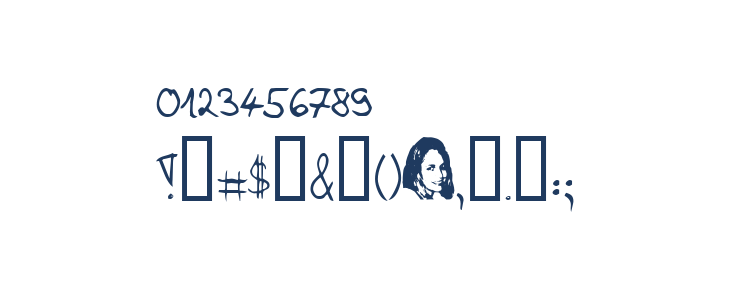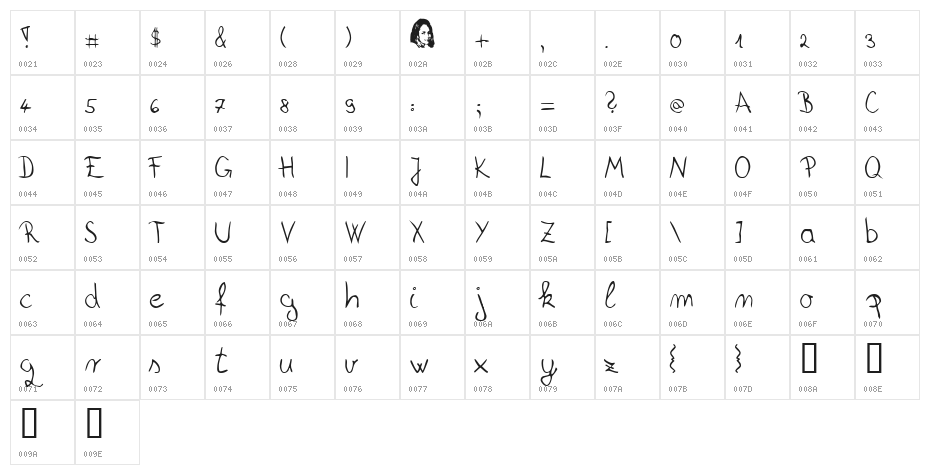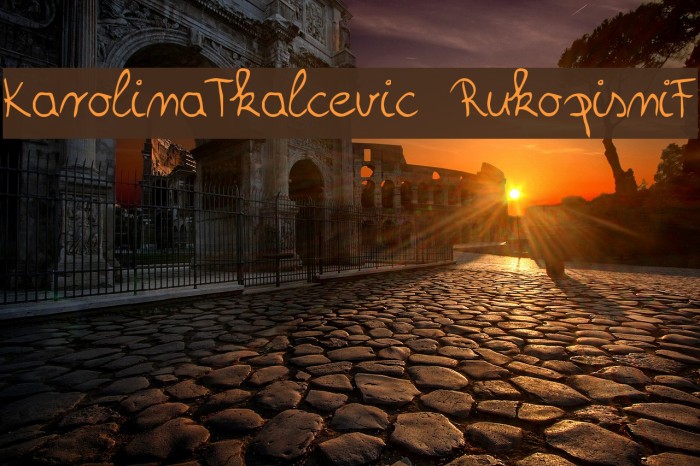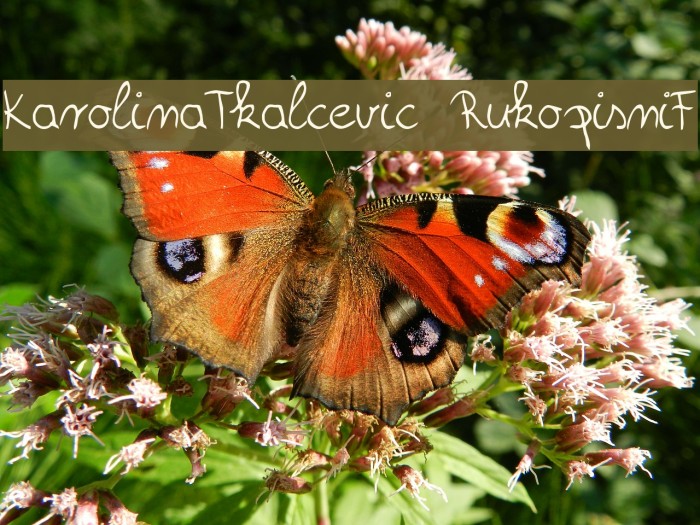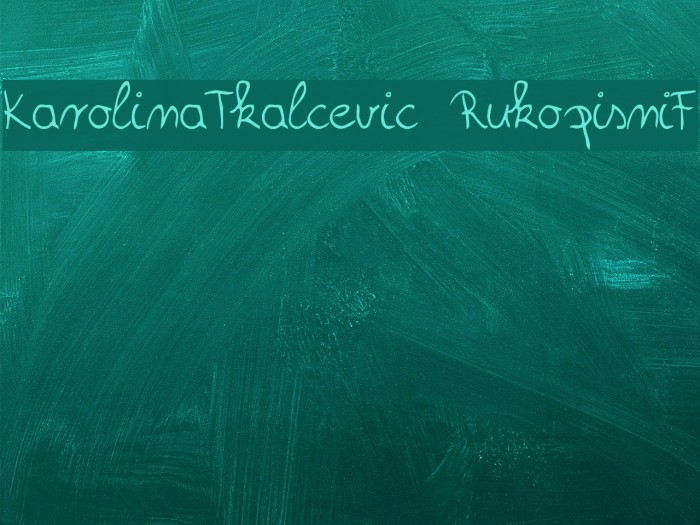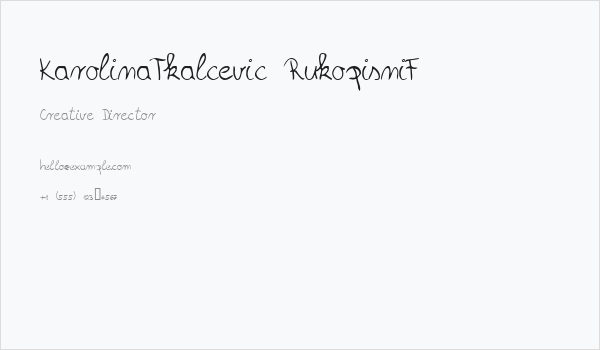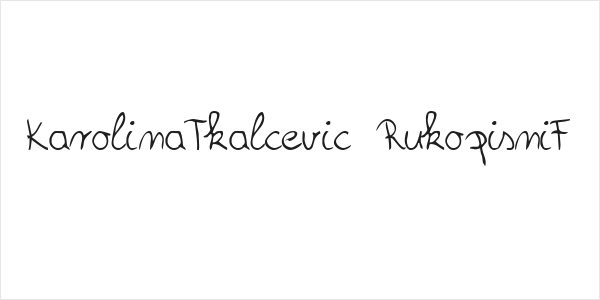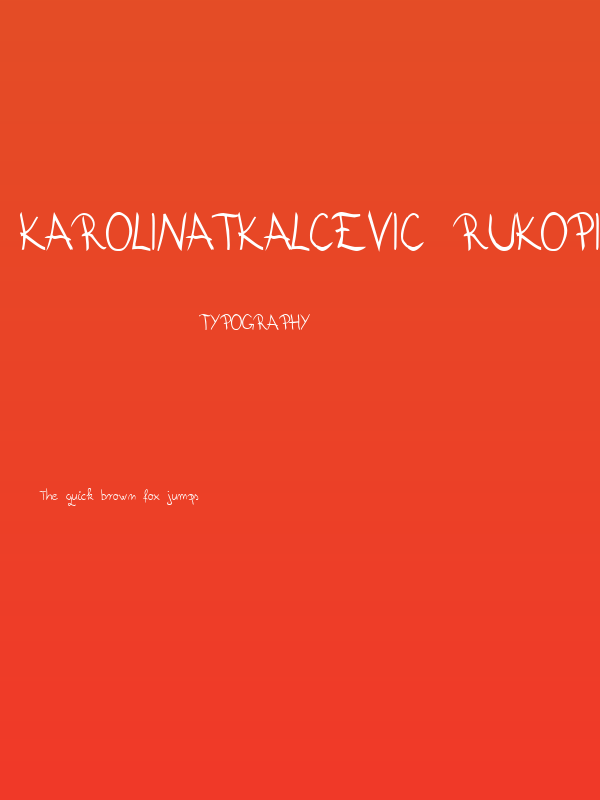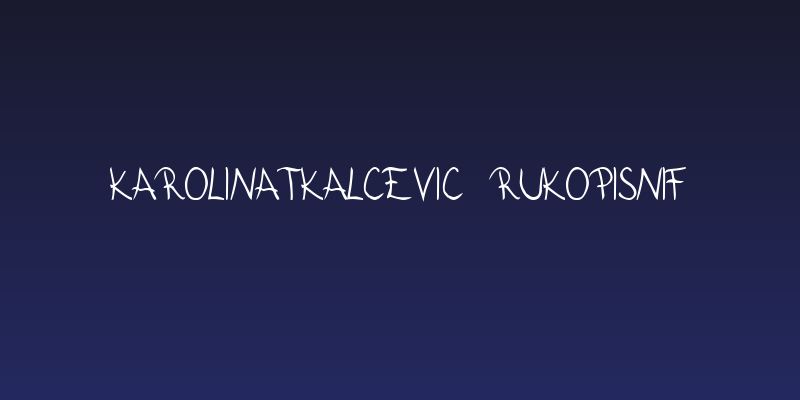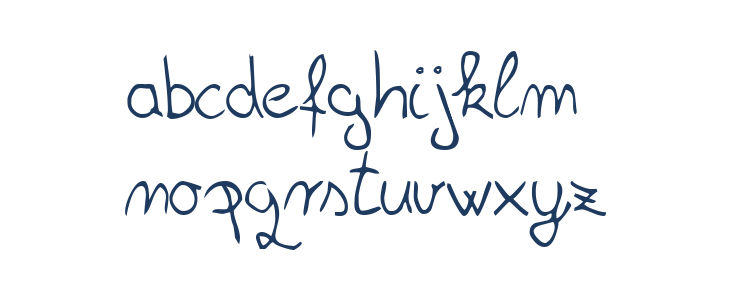
KarolinaTkalcevic RukopisniF Font
KarolinaTkalcevic RukopisniF Description
This font exhibits a handwritten style with a playful and artistic flair. The uppercase letters are tall and slightly narrow, with a whimsical touch that adds character to each letterform. The lowercase letters maintain a consistent flow, with unique loops and curves that enhance its handwritten appeal. The numbers are clear and legible, matching the overall style of the alphabet. Special characters are creatively designed, adding to the font's charm. This font is perfect for projects that require a personal and artistic touch.
| Proposed Projects | Ideal for greeting cards, personal notes, artistic posters, and creative branding. |